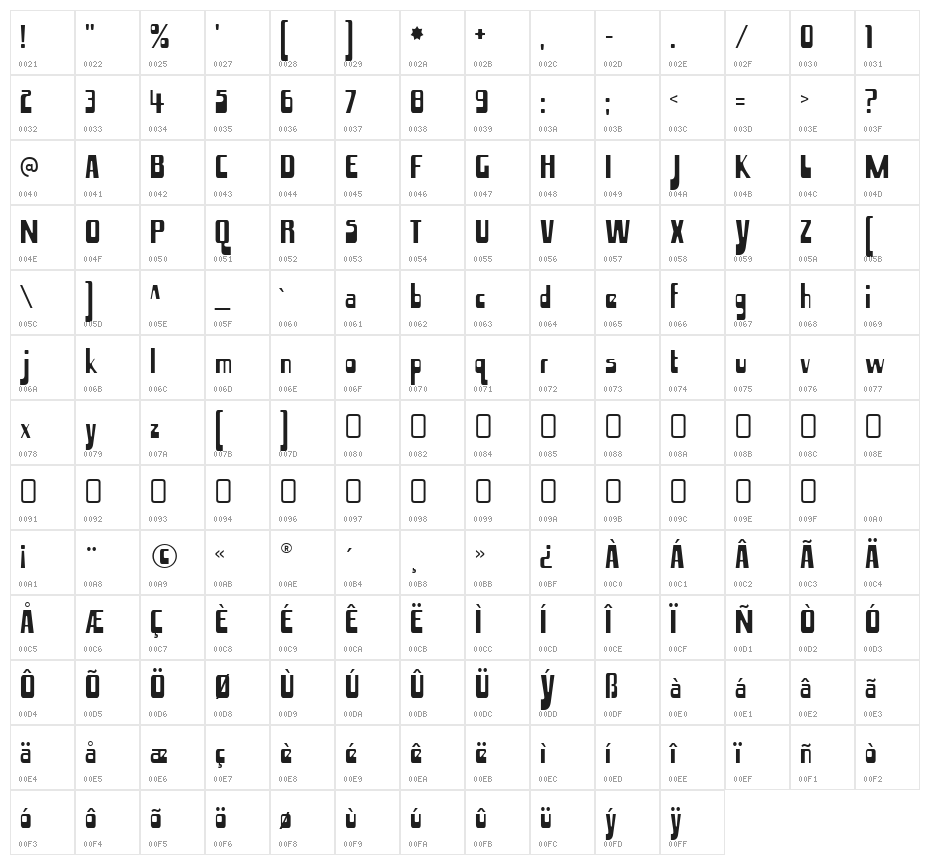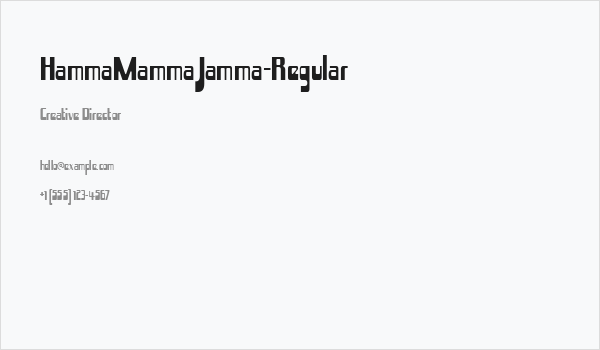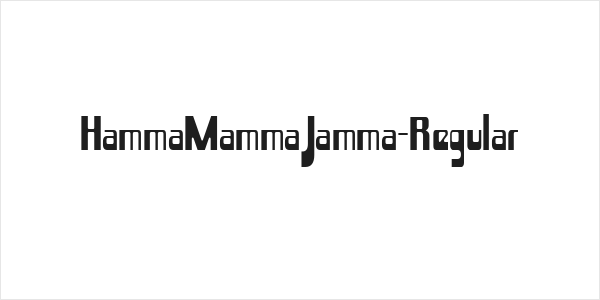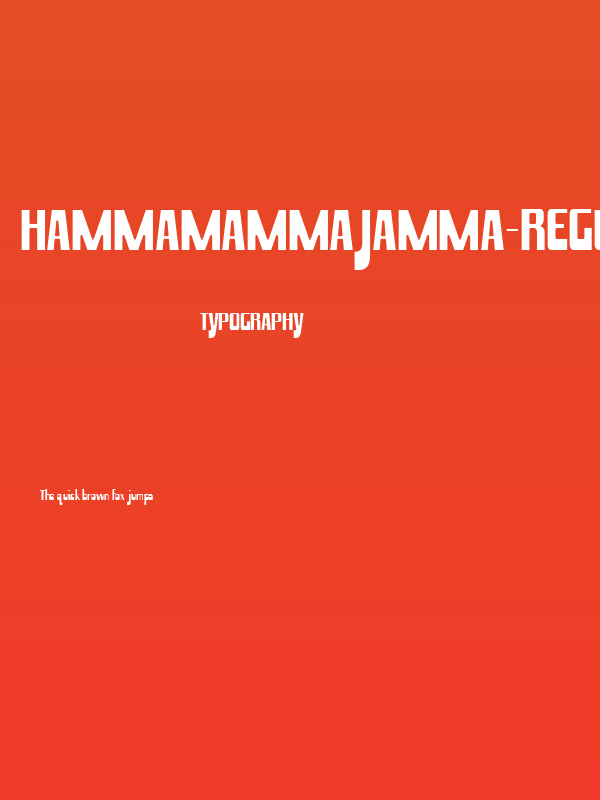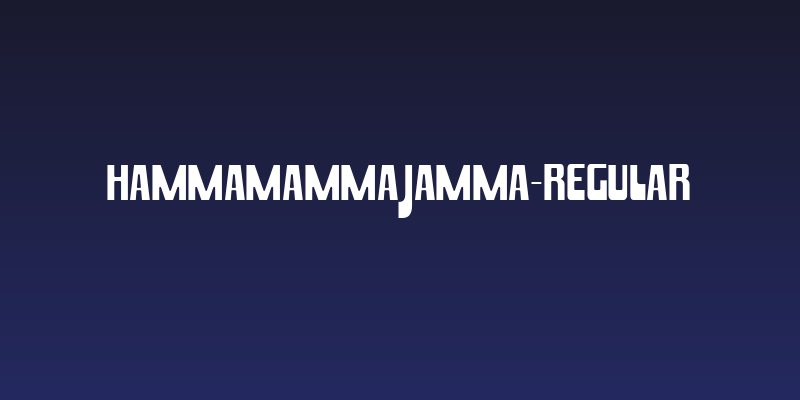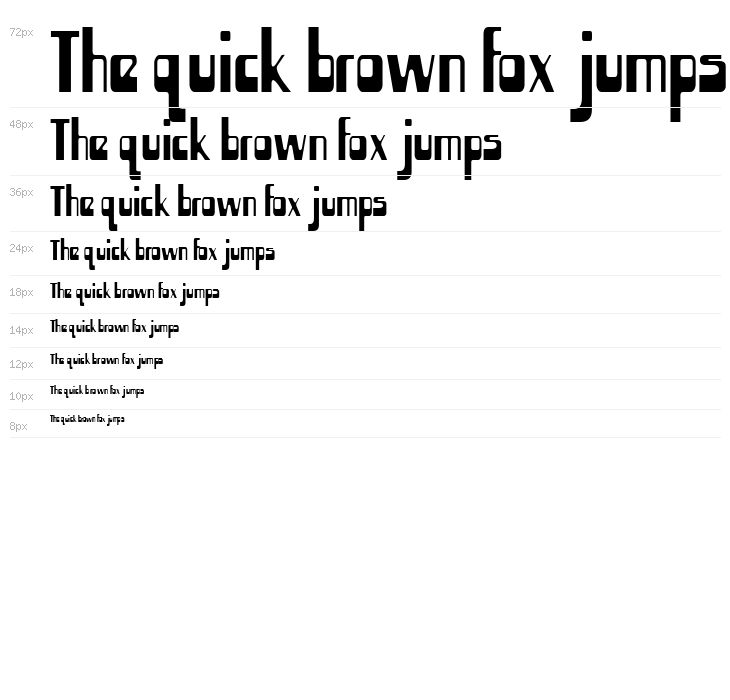
HammaMammaJamma-Regular Font
HammaMammaJamma-Regular Description
This font features a bold and striking design with a modern and geometric aesthetic. The uppercase letters are characterized by thick, angular strokes and sharp edges, creating a strong and impactful presence. The lowercase letters maintain a similar style but with slightly more variation in stroke width, adding a touch of dynamism. The numerals are consistent with the overall bold theme, ensuring readability and visual coherence. Special characters are uniquely styled, complementing the font's distinctive appearance. This font is well-suited for projects that require a bold and contemporary look.
| Proposed Projects | Ideal for branding, posters, headlines, and any design needing a strong visual impact. |